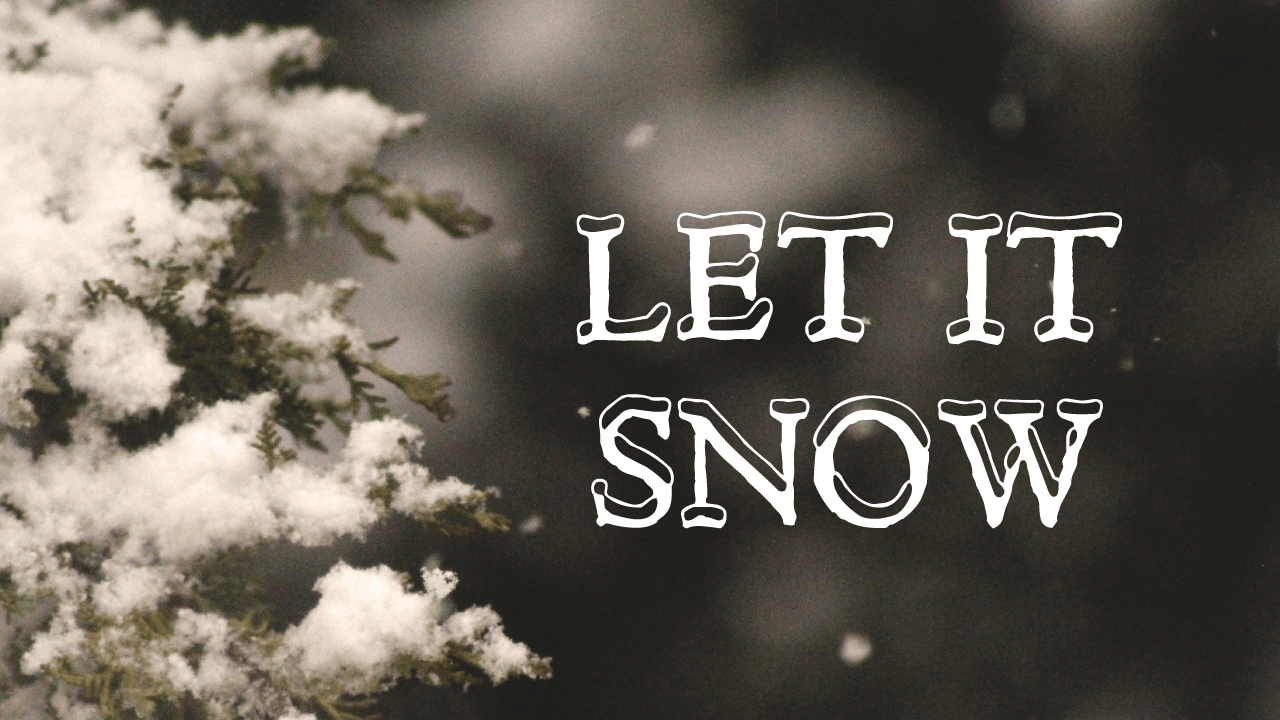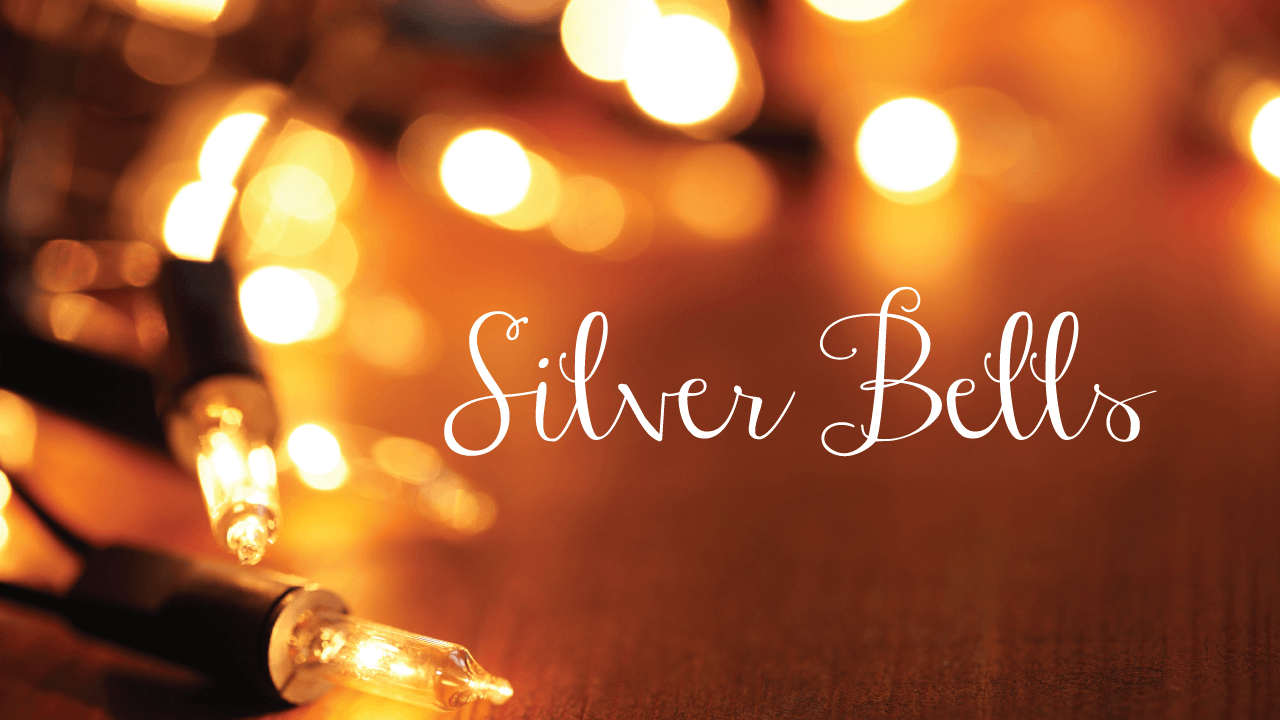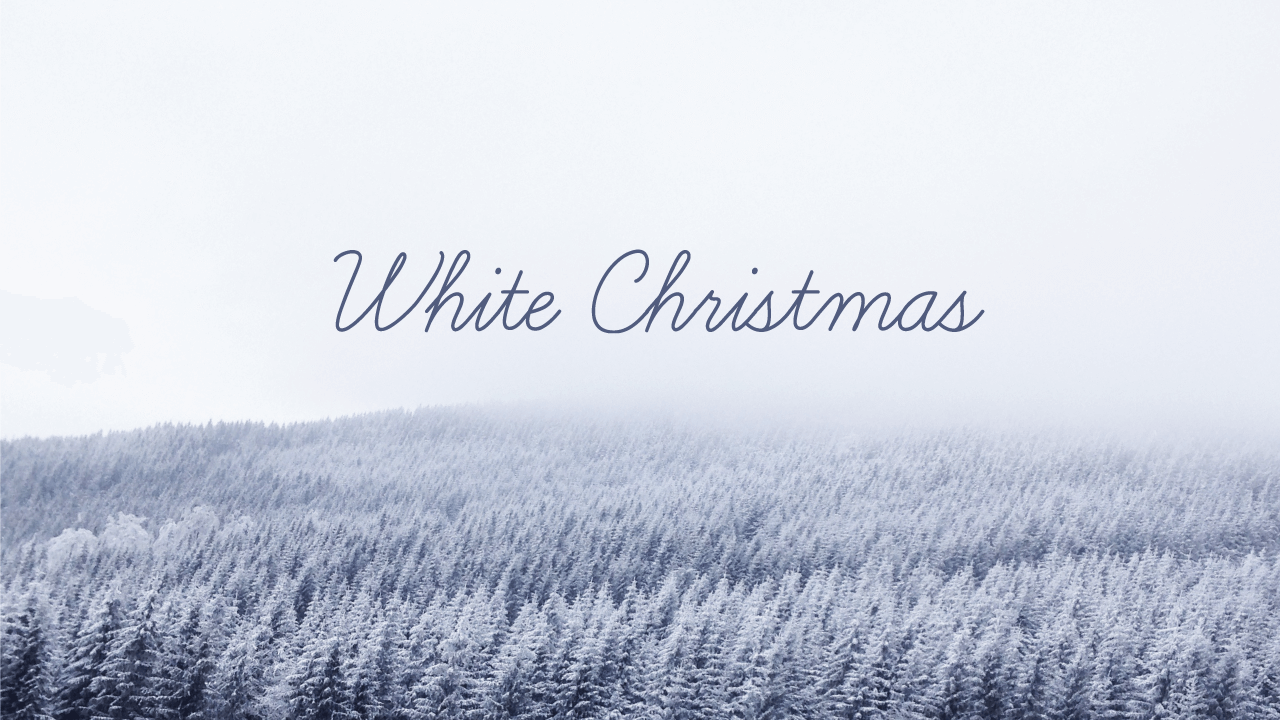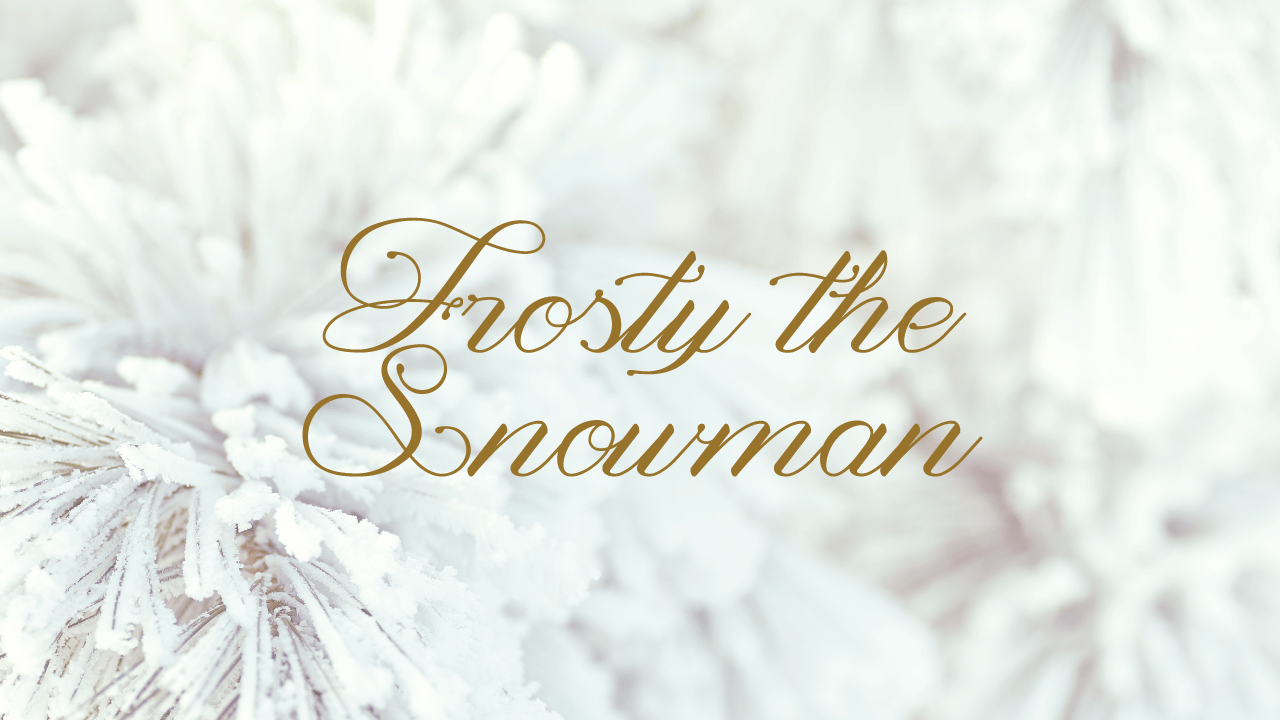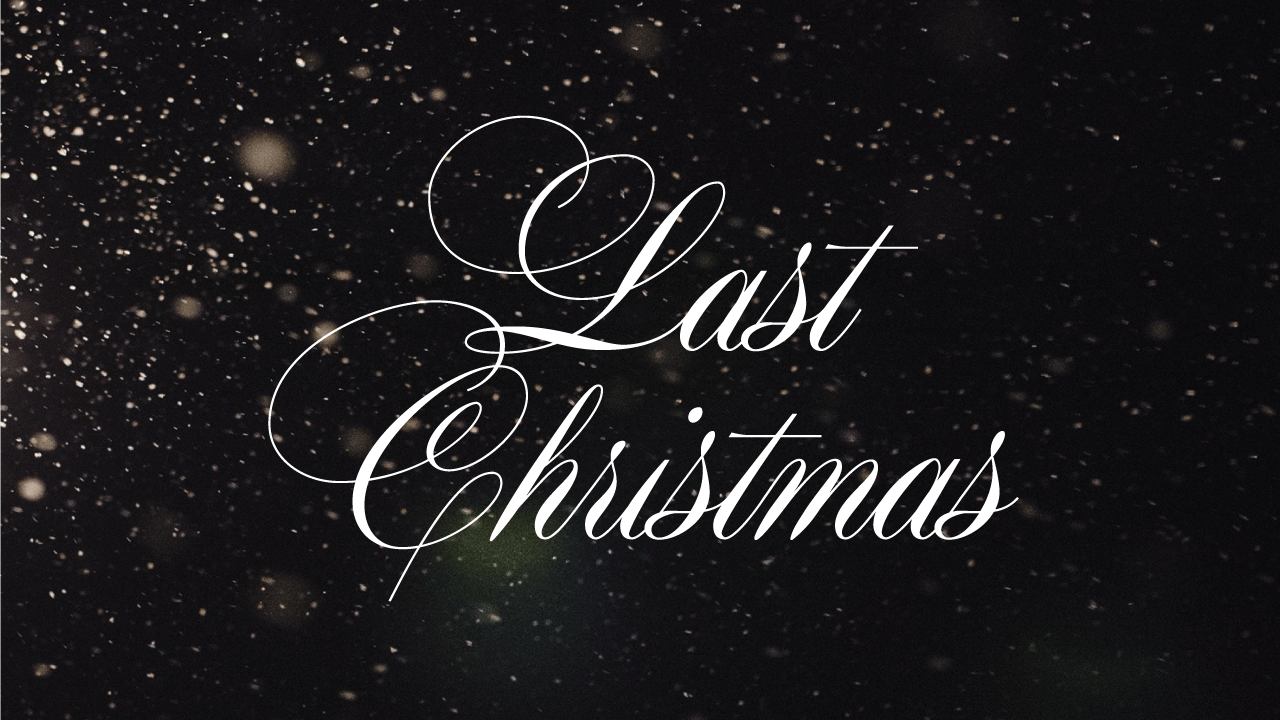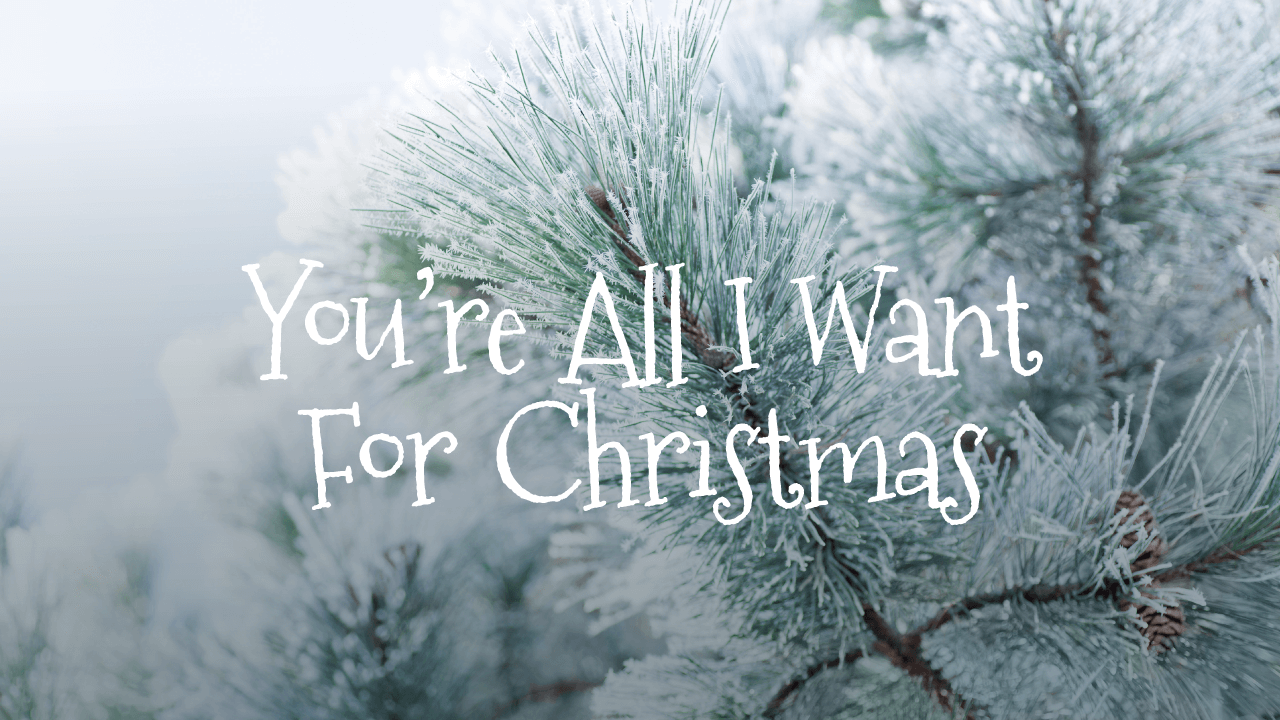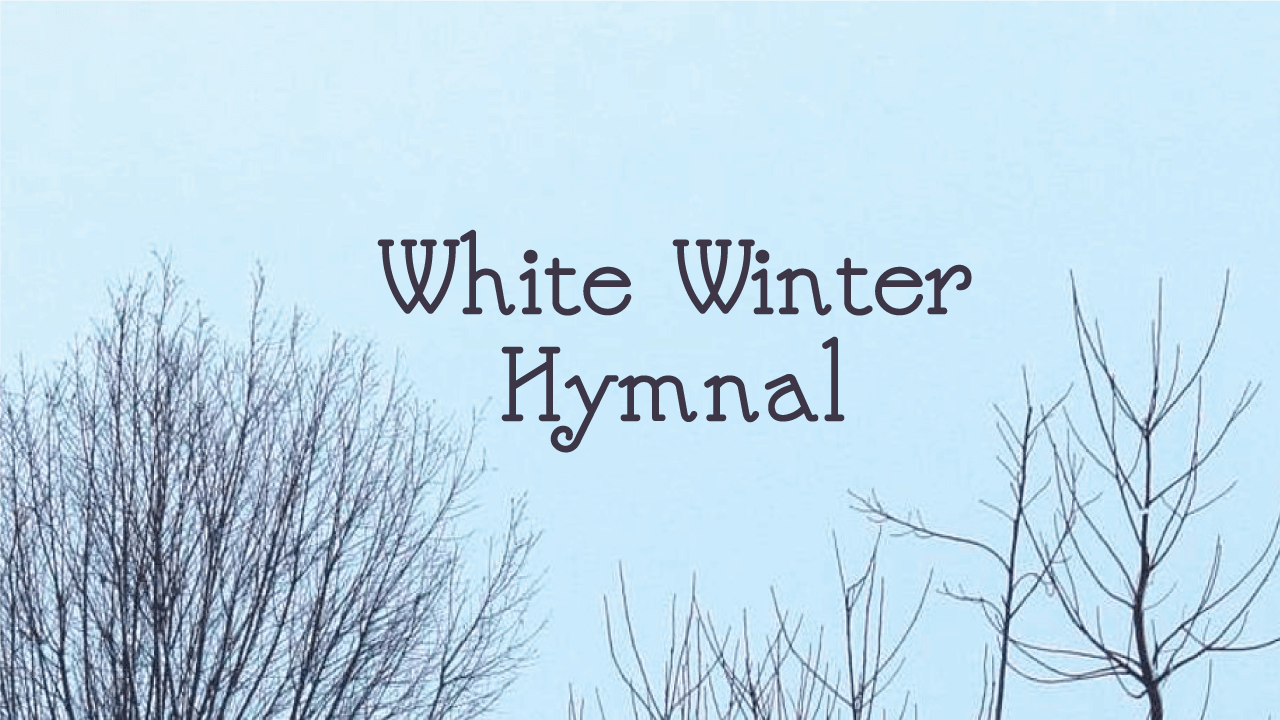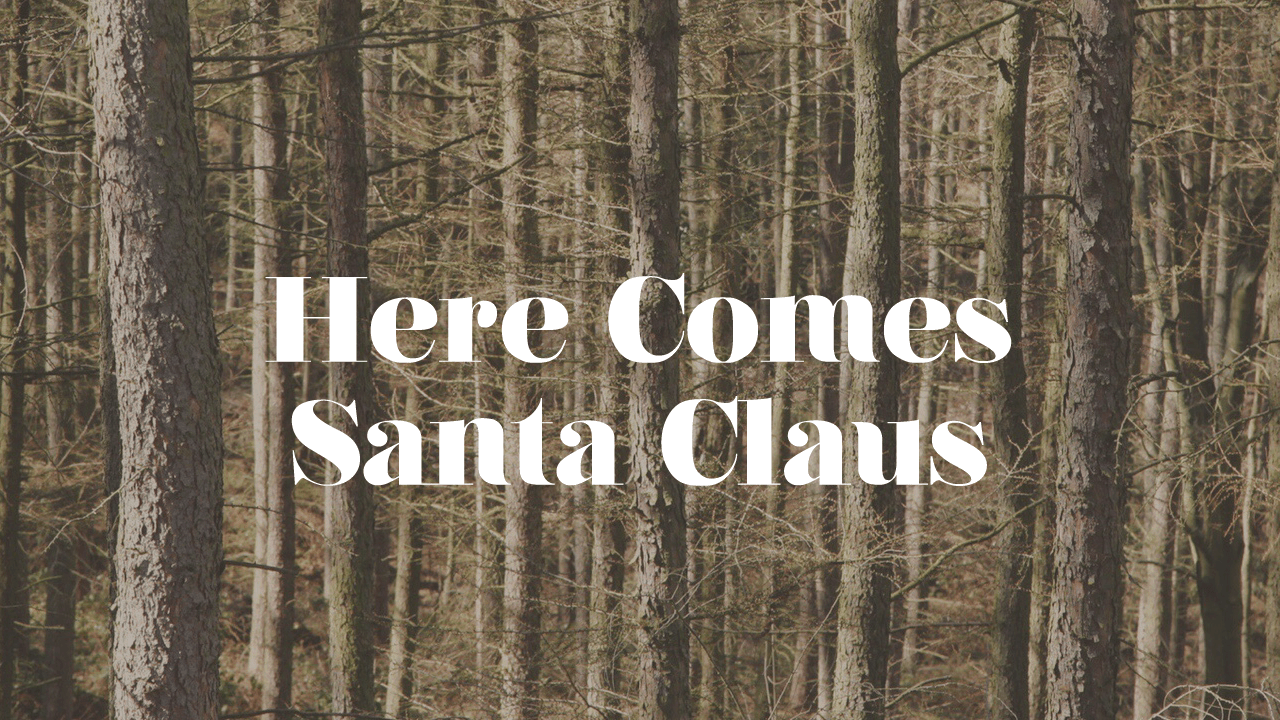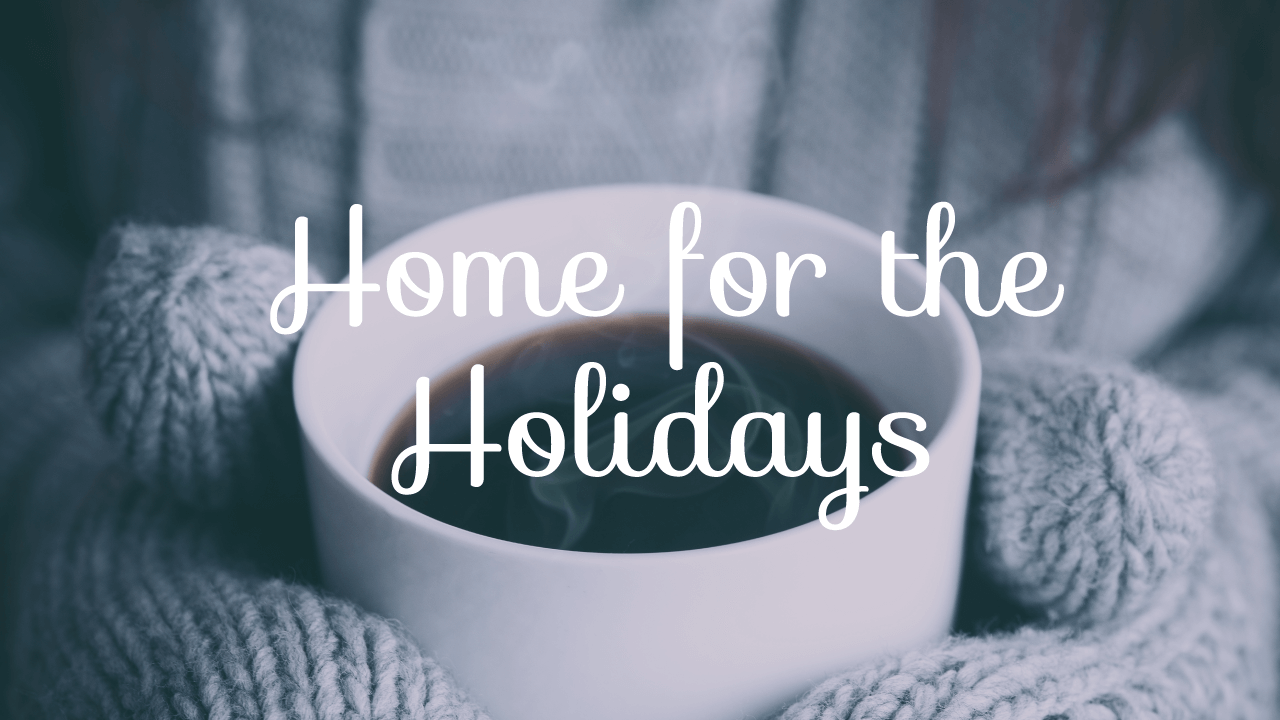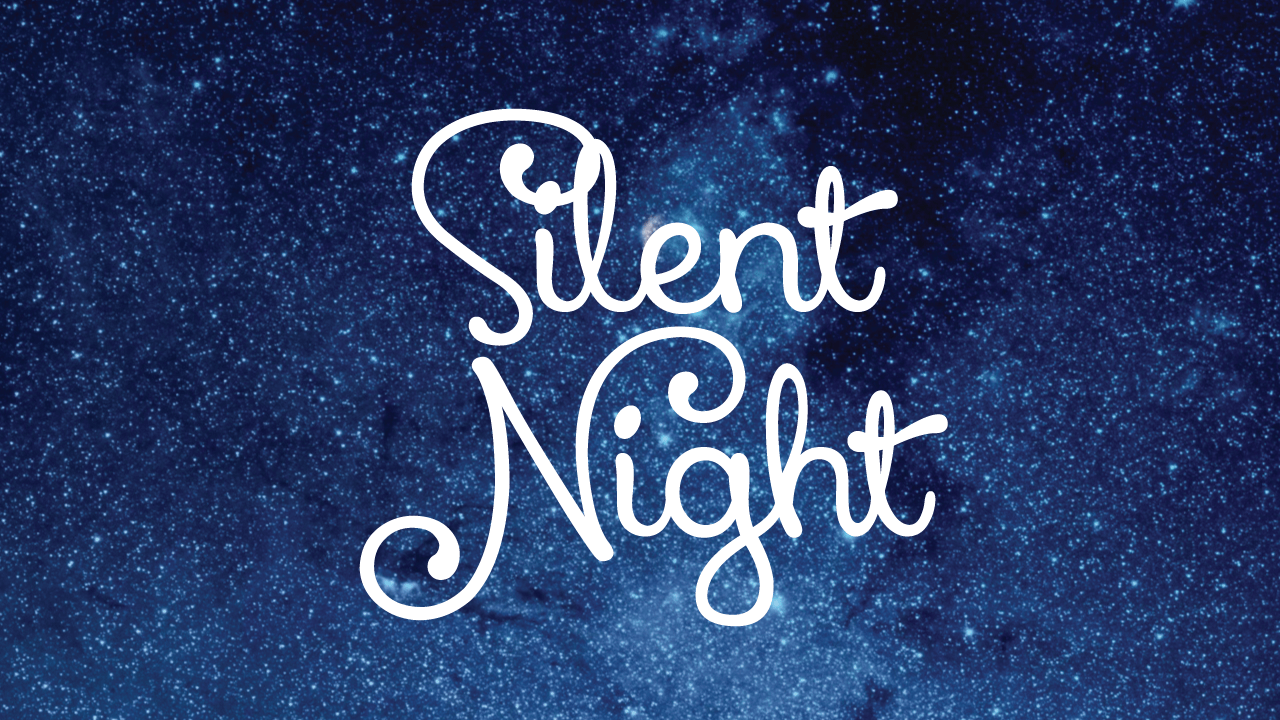
Free Christmas Fonts – Festive Typefaces for Your Holiday Designs
Looking to add some festive cheer to your next holiday design project? We’ve curated a stunning collection of free Christmas fonts that will instantly bring warmth, joy, and a seasonal vibe to your creative work.
Best Free Christmas Fonts for Designers
These festive typefaces are perfect for adding a holiday touch to your Christmas greeting cards, party invitations, flyers, social media posts, gift tags, and more. Whether your style is playful, whimsical, or elegant, you’ll find a Christmas font here that perfectly matches your creative vision.
Why Use Free Christmas Fonts in Your Holiday Designs
Christmas-themed fonts instantly transform your typography into something joyful and expressive. From snowy scripts and candy cane lettering to bold decorative styles, these typefaces add a magical touch to your text.
1. Mountains Of Christmas font
2. Kringle Font
3. Coventry Garden Nf Font
4. League Script Font
5. Sofia Font
6. Christmas Lights font
7. Bonnet Christmas font
8. Cf Snowball font
9. Firts Christmas font
10. Christmas Eve Font
11. Merry Christmas Font
12. Batter Up Font
13. Kr Santas Bag Font
14. Xmasalpha Font
15. Maratre Christmas font
16. Nickelodeon Font
17. Snowflake Letters font
18. Magnolia font
19. Christmas On Crack font
20. Hand Stockyard font
21. Thirsty Script Font
22. Nouvelle Vague Font
23. Xiomara Font
24. Snowhouse font
25. Janda Cheerful Script Font
26. Harrington Font
27. Happy New One font
28. Hultog Snowdrift Font
29. Learning Curve font
30. Grinched Christmas Font